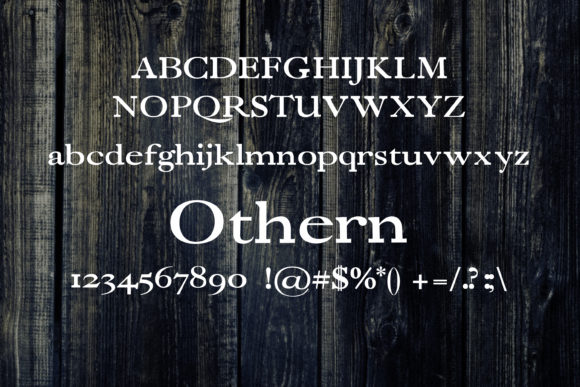
Introduction to Othern Font
Have you ever been stuck on a creative project, desperately searching for the perfect font to bring your design to life? You scroll through page after page of fonts, but none seem to capture the essence of your vision. That’s where the Othern Font comes in – a strong and serious serif font that exudes classic sophistication.
As a valuable design resource, the Othern Font is a must-have for any serious designer. Its high-quality design makes it perfect for a wide range of creative projects, from elegant business cards to beautiful book covers. And the best part? The Othern Font is available for free download, complete with a transparent background, allowing you to seamlessly integrate it into your design.
Whether you’re a seasoned pro or just starting out, the Othern Font is an invaluable addition to your design toolkit. In this article, we’ll dive deeper into the world of this stunning font and explore its many uses and benefits.
Key Features of Othern Font
- High-quality design resource ideal for creative projects, with a unique and modern aesthetic.
- Features a transparent background, allowing for easy customization and layering in your design project.
- Designed at a high resolution of 300 DPI, ensuring crisp and clear text display in both digital and print formats.
- Perfect for designers, artists, and creatives looking for a high-quality, versatile font to elevate their next project.
Honest Review: Othern Font
As a designer, I’m always on the lookout for high-quality design resources to elevate my creative projects. I recently had the chance to work with Othern Font, and I must say it’s been a game-changer.
- ✨ Wide range of styles and fonts to choose from, making it perfect for diverse creative projects
- ✨ High-quality design that’s crisp and clear, even when used on transparent backgrounds
- ⚠️ Limited customization options, which may not be ideal for designers who like to tweak and adjust their fonts
Overall, I’m impressed with Othern Font and would definitely recommend it to fellow designers. While it may not be perfect, its high quality and versatility make it a valuable addition to any design resource library.
Othern Font is a high-quality design resource ideal for creative projects that require unique and eye-catching typography. This font is available for free download, making it a valuable addition to any designer’s toolkit.
Tips for Getting the Most Out of Othern Font
To get the most out of Othern Font, consider the following tips:
- Use Othern Font with a transparent background to create a clean and minimalist design.
- Combine Othern Font with other design elements, such as images and graphics, to create a unique and engaging design.
Othern Font is commonly used in:
- Web design projects
- Marketing materials, such as brochures and business cards